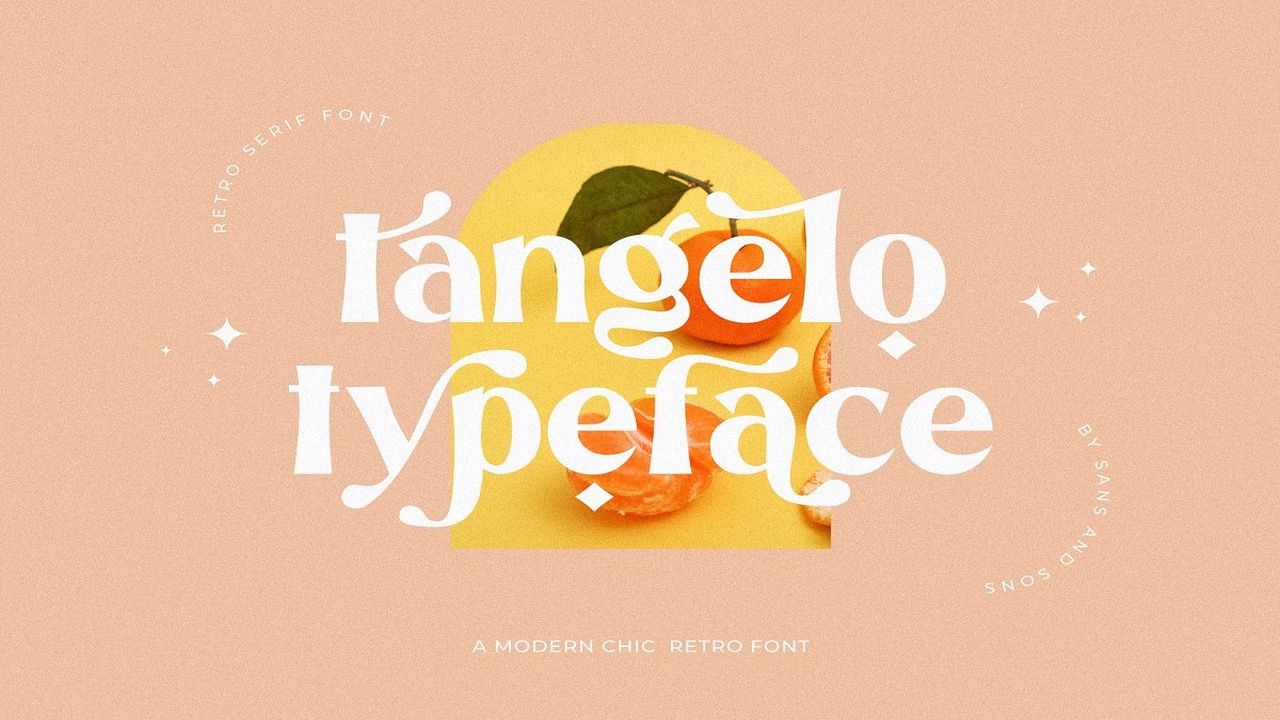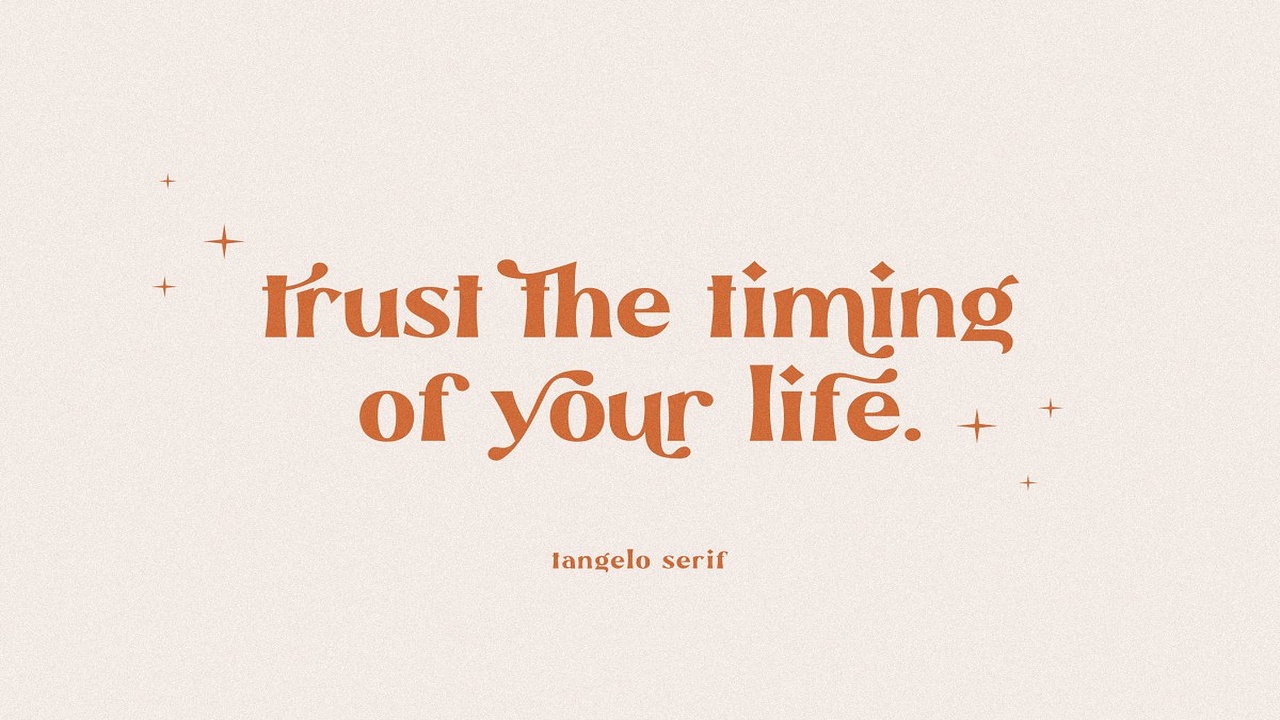
About the Tangelo Retro Serif Font
Tangelo – Retro Serif Font by Sans and Sonsintroducing our new Tangelo Modern Retro with Handdrawn Style is perfect for branding, logos, invitation, master heads, and more, Tangelo Features :MultilanguageAlternatesPUA EncodedLigaturesVery easy to use in any software (Instructions included) :Files Includes :Tangelo, otfTangelo, ttfTangelo, woffInstructions